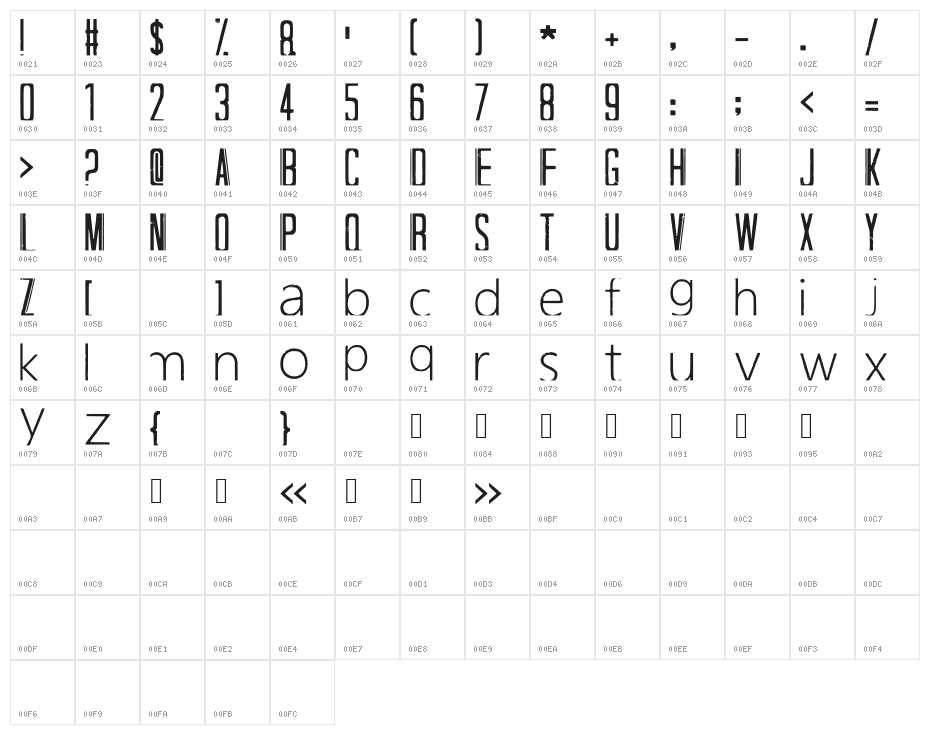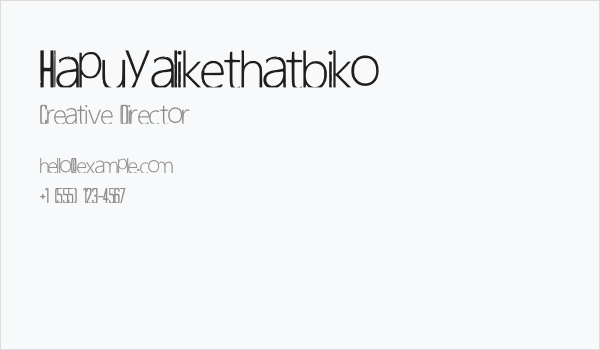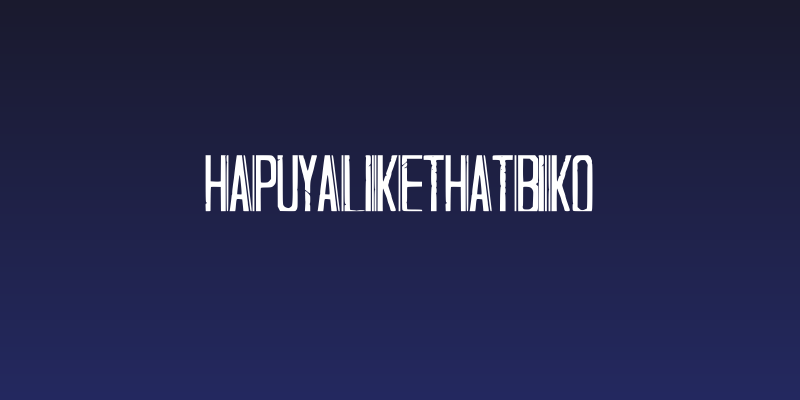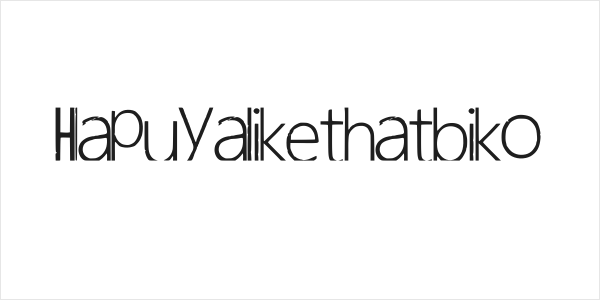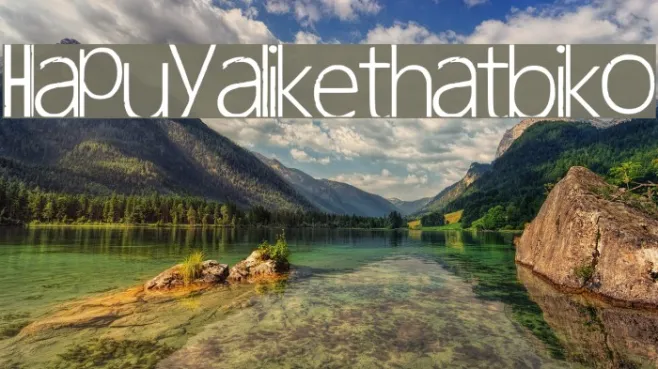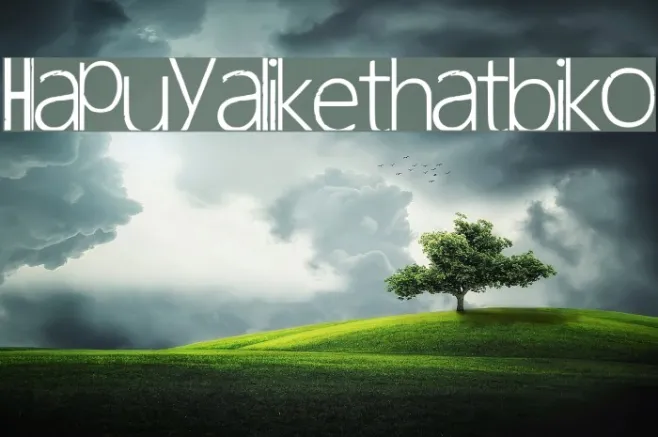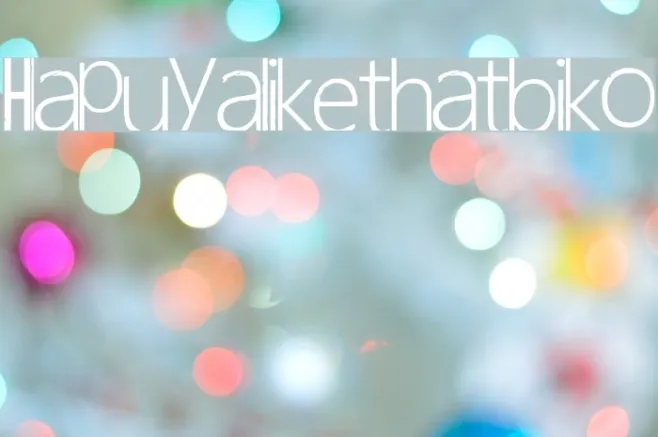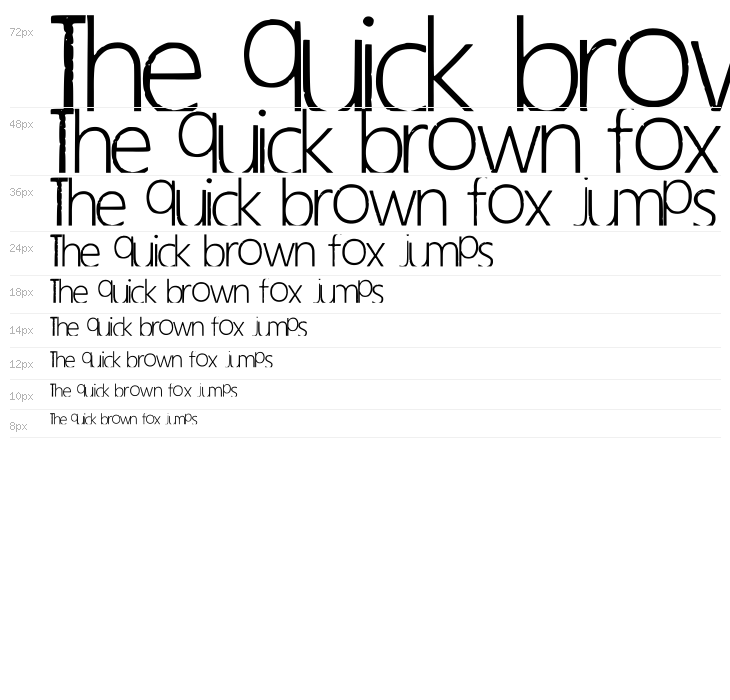
Hapuyalikethatbiko Font
Hapuyalikethatbiko Description
This font features a unique and striking design with a high level of contrast between thick and thin strokes. The uppercase letters are bold and have a distressed, grunge-like appearance, which gives them a dynamic and edgy feel. The lowercase letters are more streamlined and modern, providing a nice balance to the overall look. The numerals and special characters maintain the same bold and distressed style, ensuring consistency throughout. This font is ideal for projects that require a bold statement or a modern, artistic touch.
| Overall Style | Modern, Edgy, Artistic |
| Proposed Projects | Ideal for album covers, posters, branding materials, and any project needing a bold, artistic statement. |